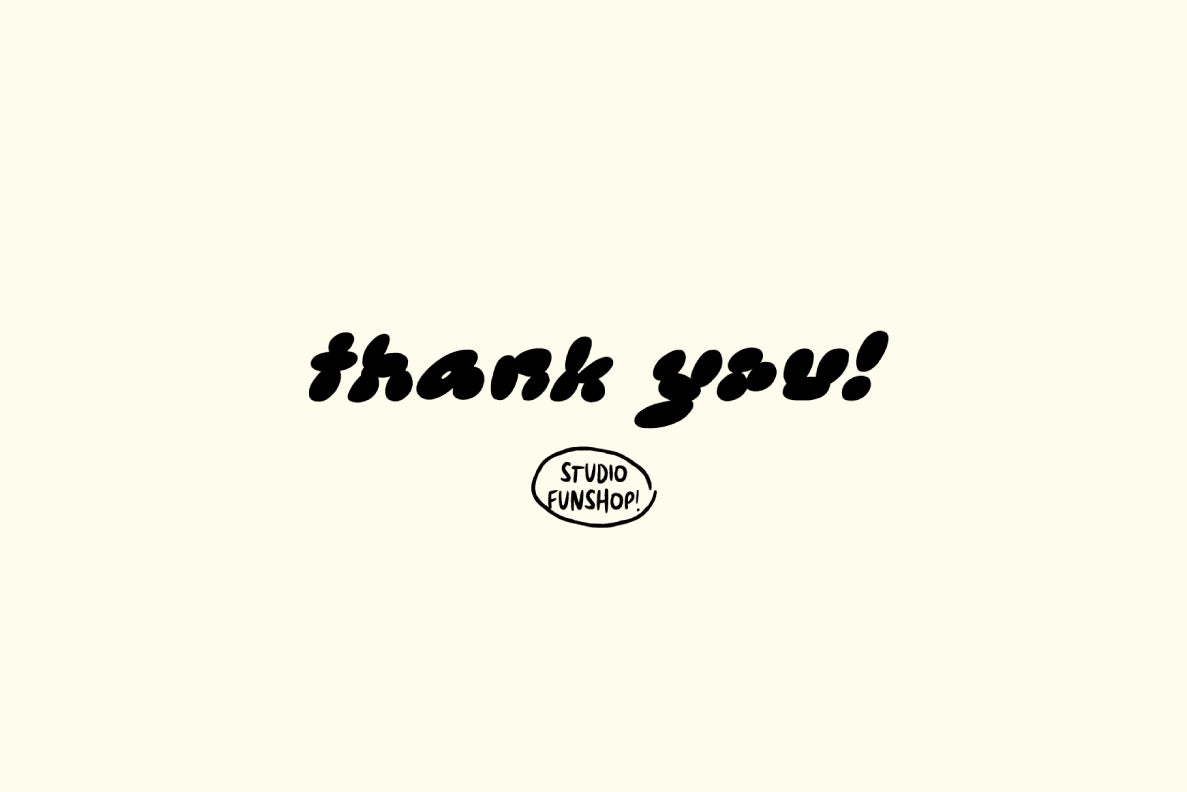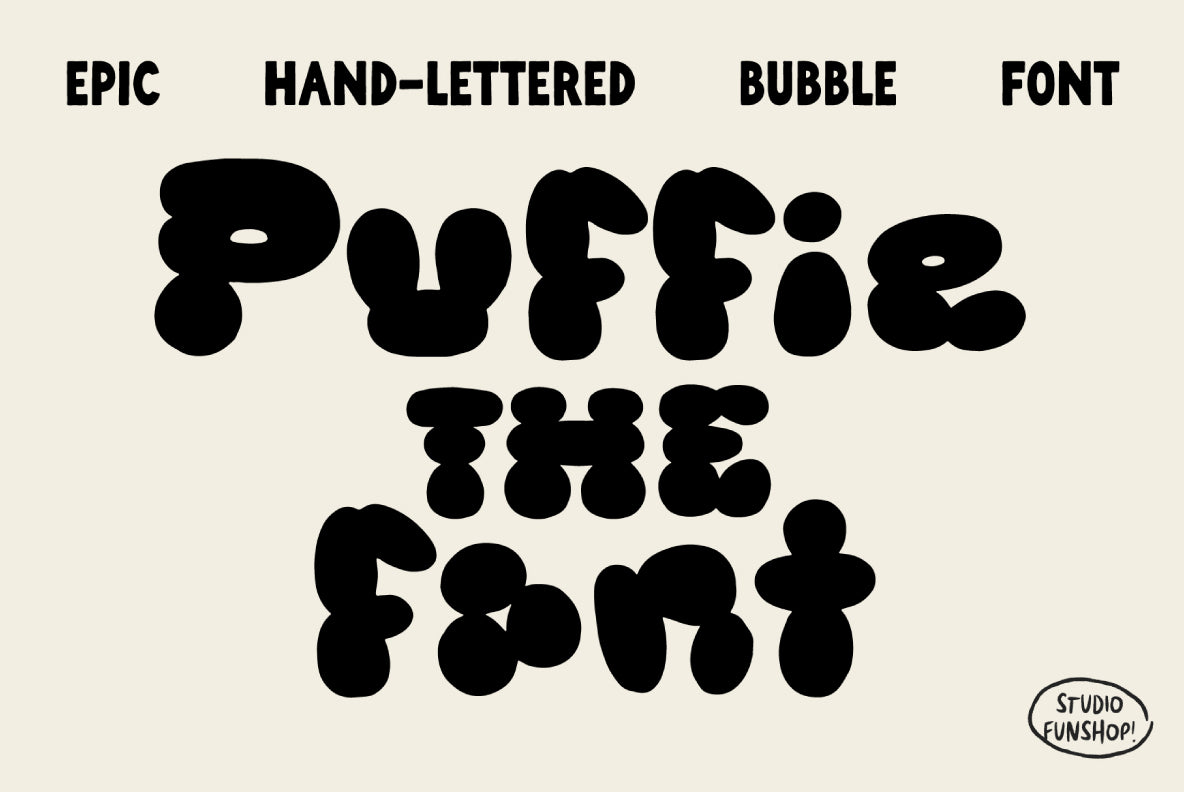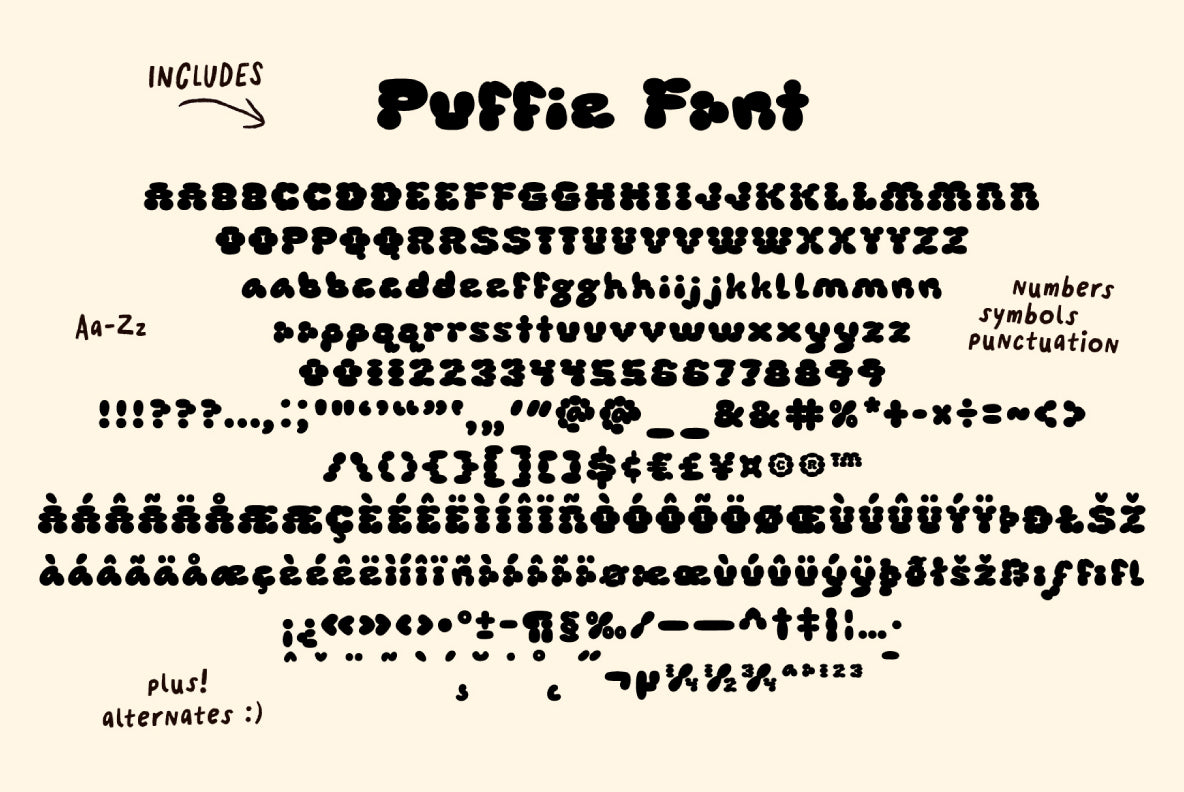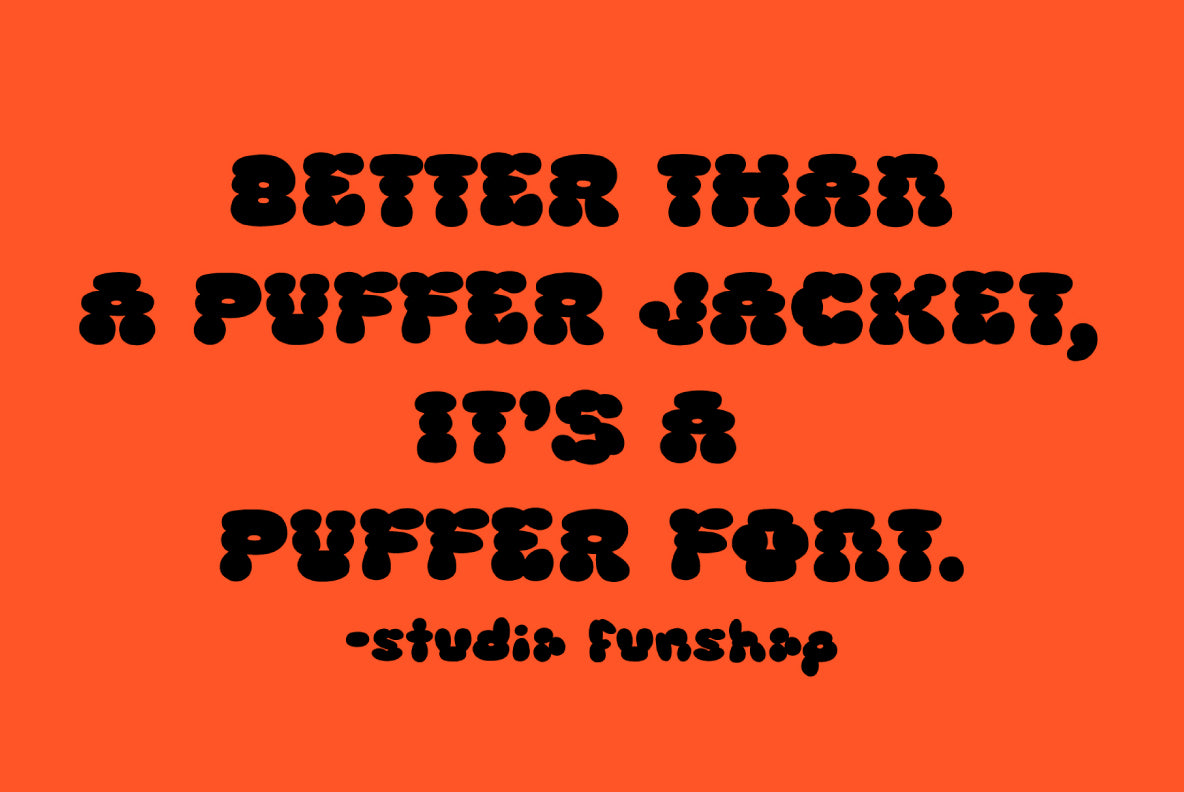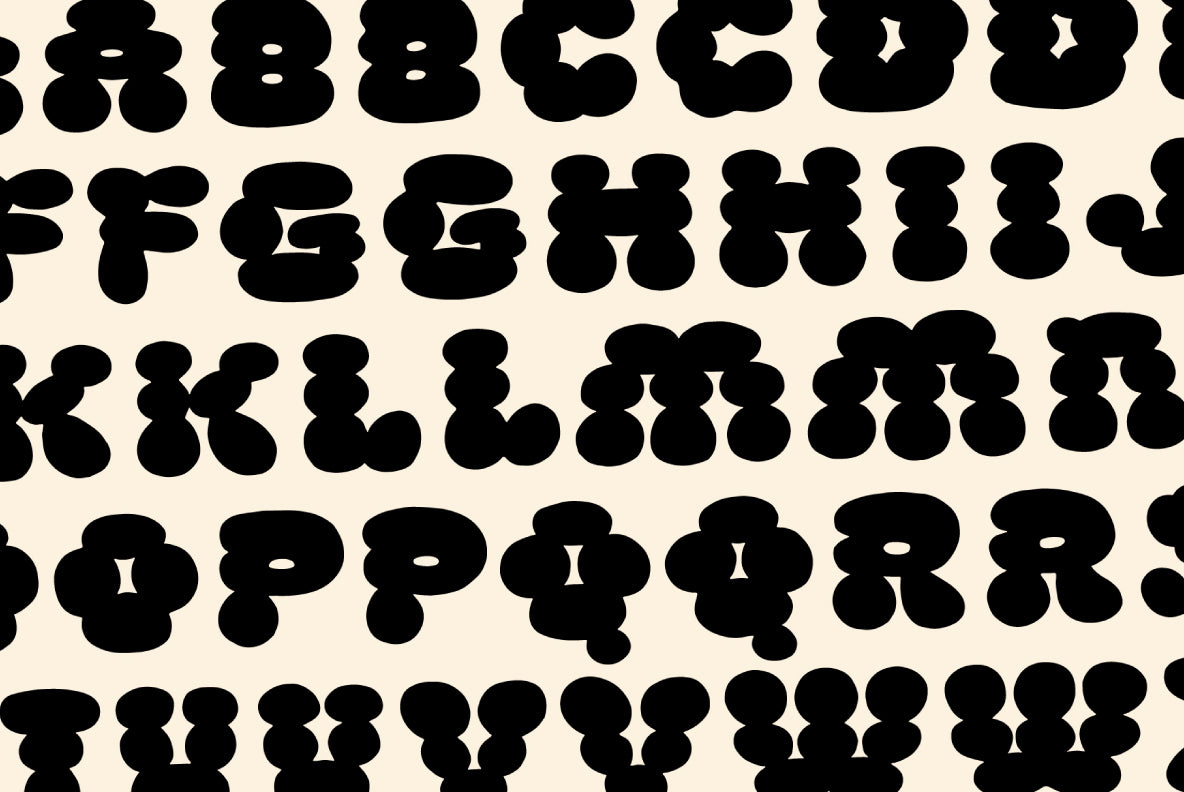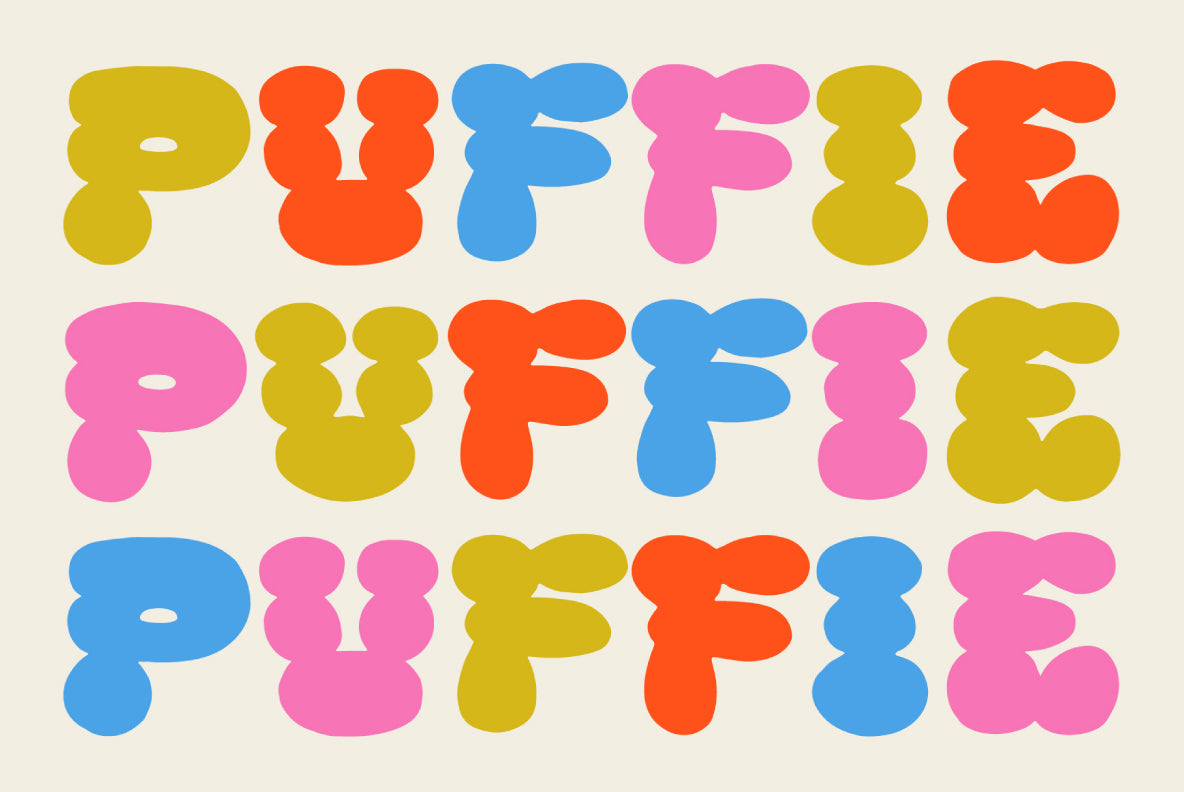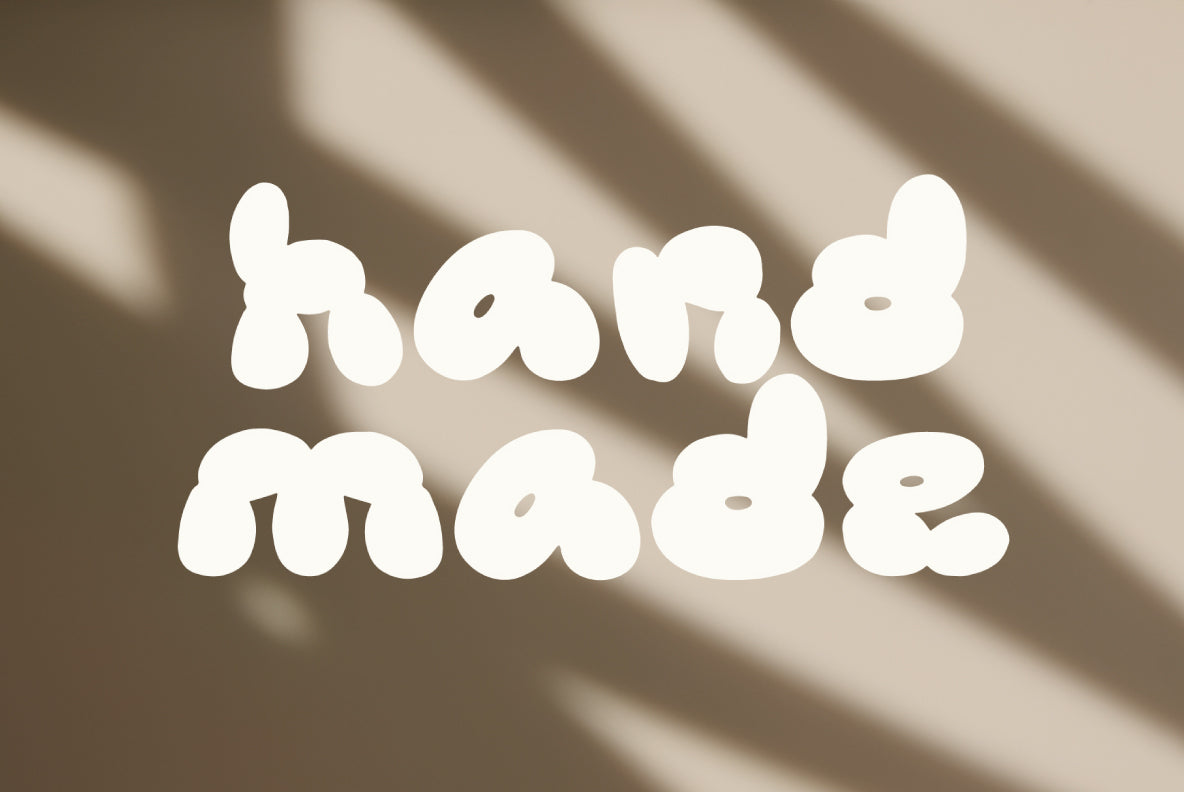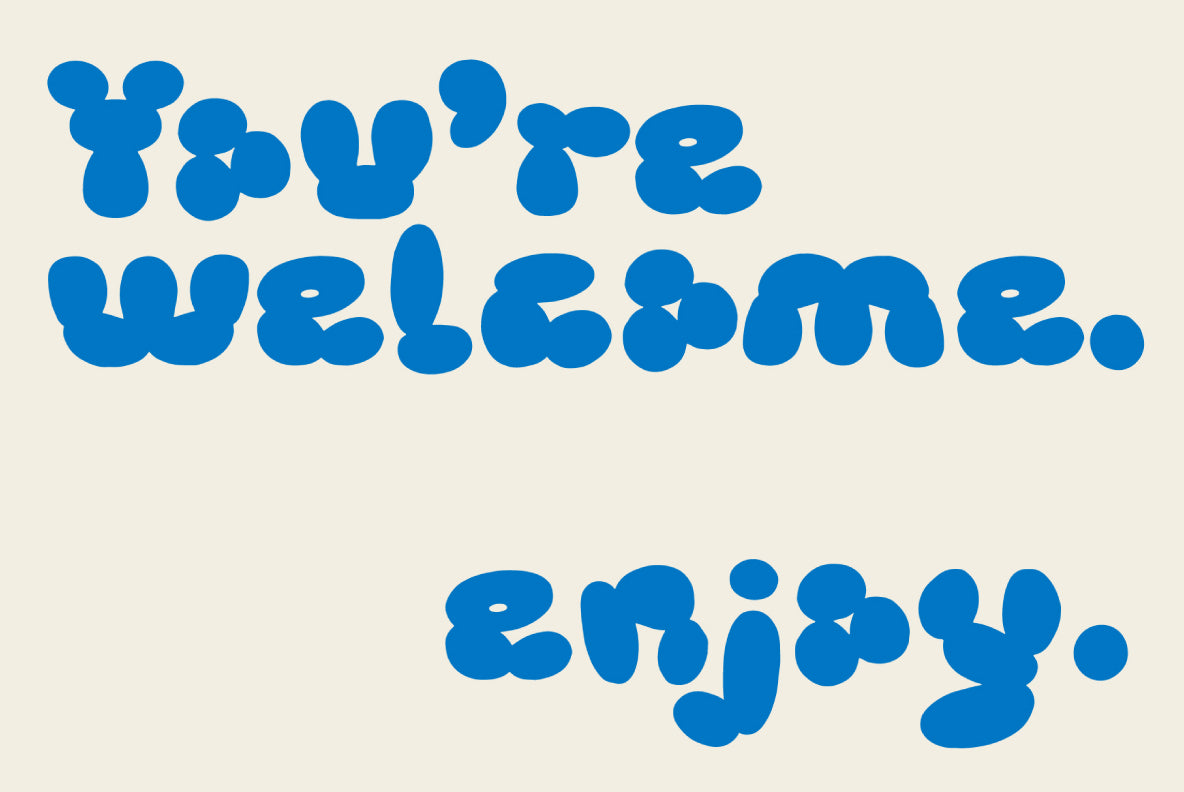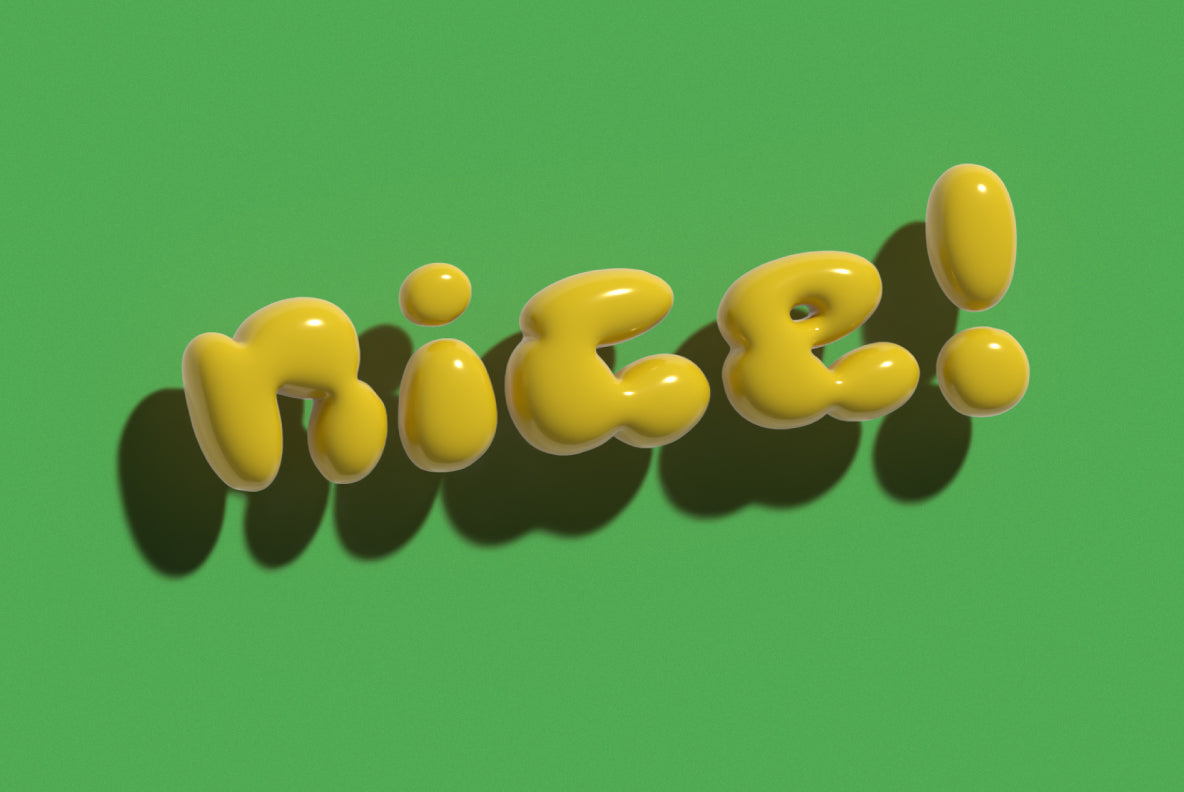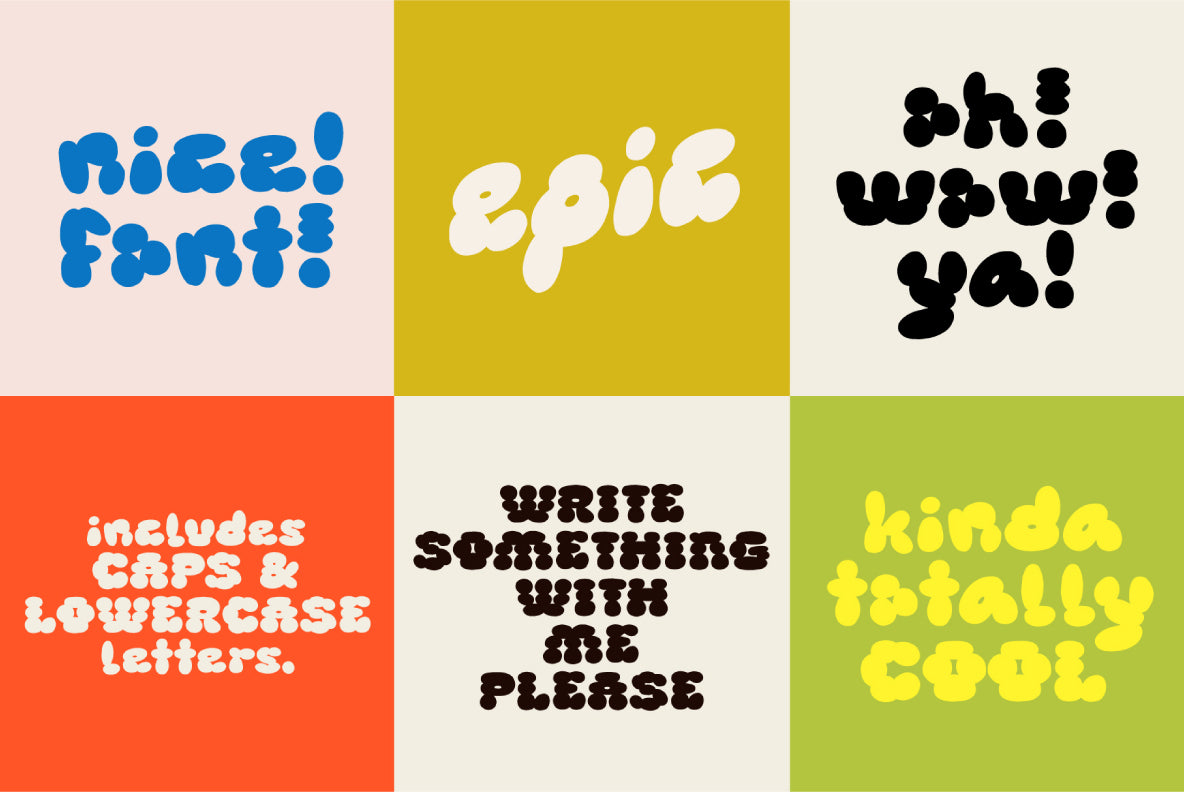
Puffie - Bold Handmade Bubble Font
Puffie is a hand-lettered bubble font made for bold, playful, and one-of-a-kind designs.
Its rounded shapes and unique edges give every word a lively, handmade energy that feels full of personality and charm.
Each letter was drawn by hand, giving it that slightly imperfect, handmade look that keeps things natural and approachable. Perfect for logos, quotes, posters, packaging, or any project that needs a little extra joy.
What's in the font?
- Uppercase and Lowercase Aa-Zz
- Numbers, Symbols & Punctuation
- Alternates for natural variation
- Some Multi-lingual Glyphs (see slides!)